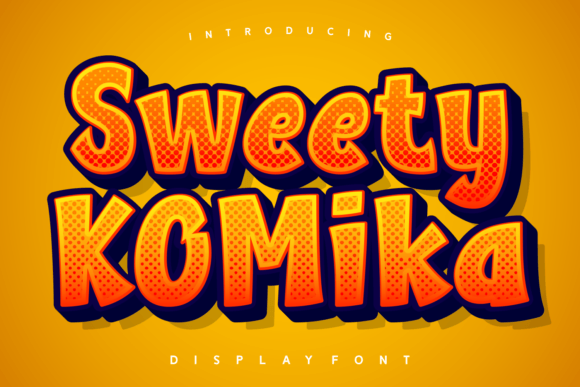
Welcome to the enchanting realm of Sweety Komika, a display font that radiates charm and individuality. Embark on a creative adventure where imagination knows no bounds and where your designs come alive with a playful, eye-catching flair. Dive into the world of Sweety Komika, where creativity becomes an exhilarating experience.
Unleash the magic of Sweety Komika, the ultimate font for comic book enthusiasts and graphic designers seeking a touch of whimsy. Its bold, chunky letters dance across the page, carrying readers into a world of captivating stories and vibrant characters. Allow your imagination to soar as you craft captivating comic panels, where heroes and villains come to life with every stroke of the pen.
As a display font, Sweety Komika transcends the boundaries of ordinary typography, inviting you to create captivating headlines that demand attention. Its unique letterforms, bursting with personality, add a spark of excitement to posters, flyers, and product labels, ensuring your message cuts through the noise and leaves an unforgettable impression.
With Sweety Komika, discover the versatility that knows no limits. Its playful charm lends itself effortlessly to a myriad of applications. Create whimsical invitations, greeting cards, and social media graphics that exude warmth and lightheartedness. Let your creativity run wild as you explore the endless possibilities that await you with this remarkable font.
Join the ranks of savvy designers who recognize the transformative power of Sweety Komika. Its distinct style has captivated countless hearts, making it a go-to choice for those seeking to inject a touch of whimsy into their creative projects. Experience the magic firsthand and see why Sweety Komika is the darling of the design world.
Step into a world of boundless creativity, where fonts ignite your imagination and bring your visions to life. Discover the enchanting allure of Sweety Komika, a font that captivates hearts and captivates imaginations. Let your creativity dance with its playful charm and create designs that leave a lasting impression. Embrace the world of Sweety Komika and unlock the door to a realm of limitless possibilities.